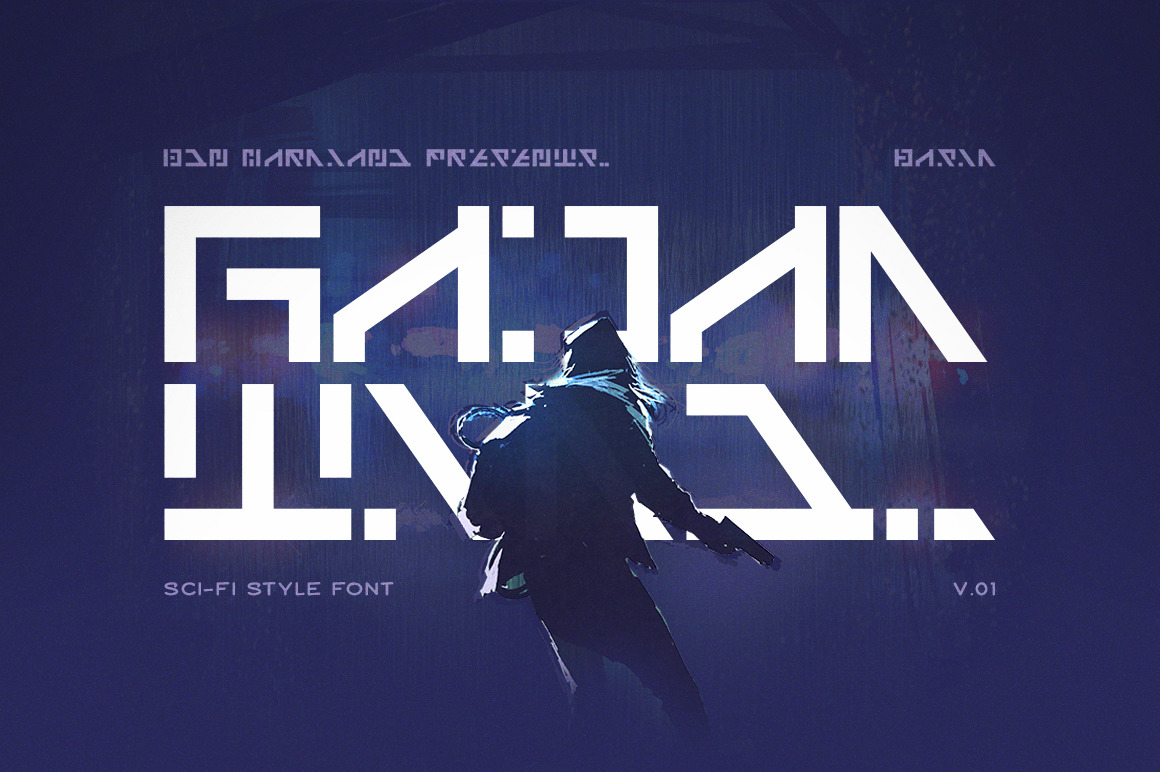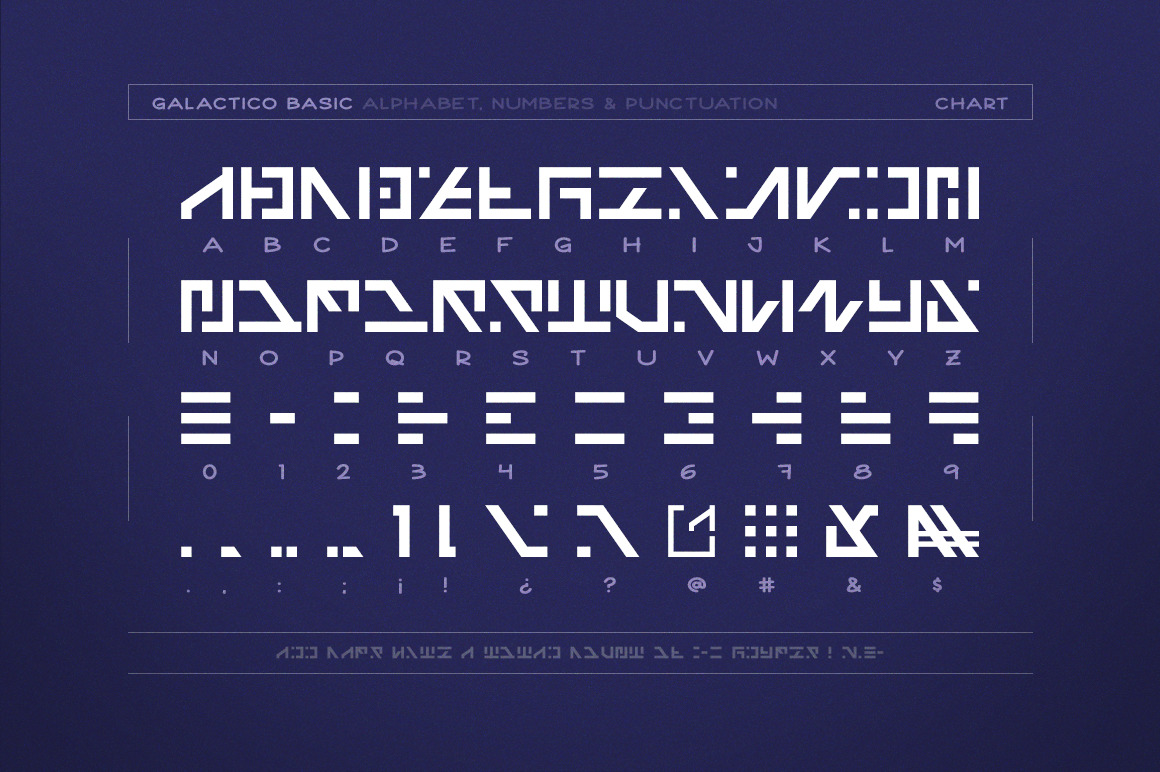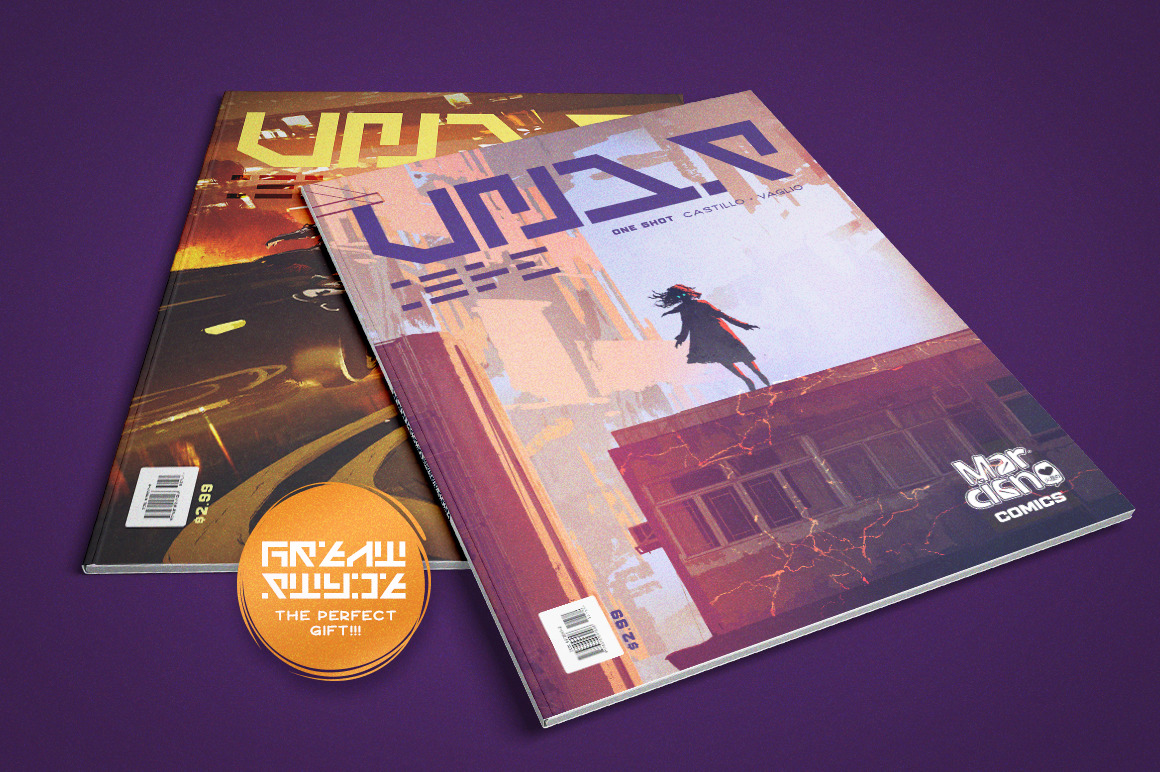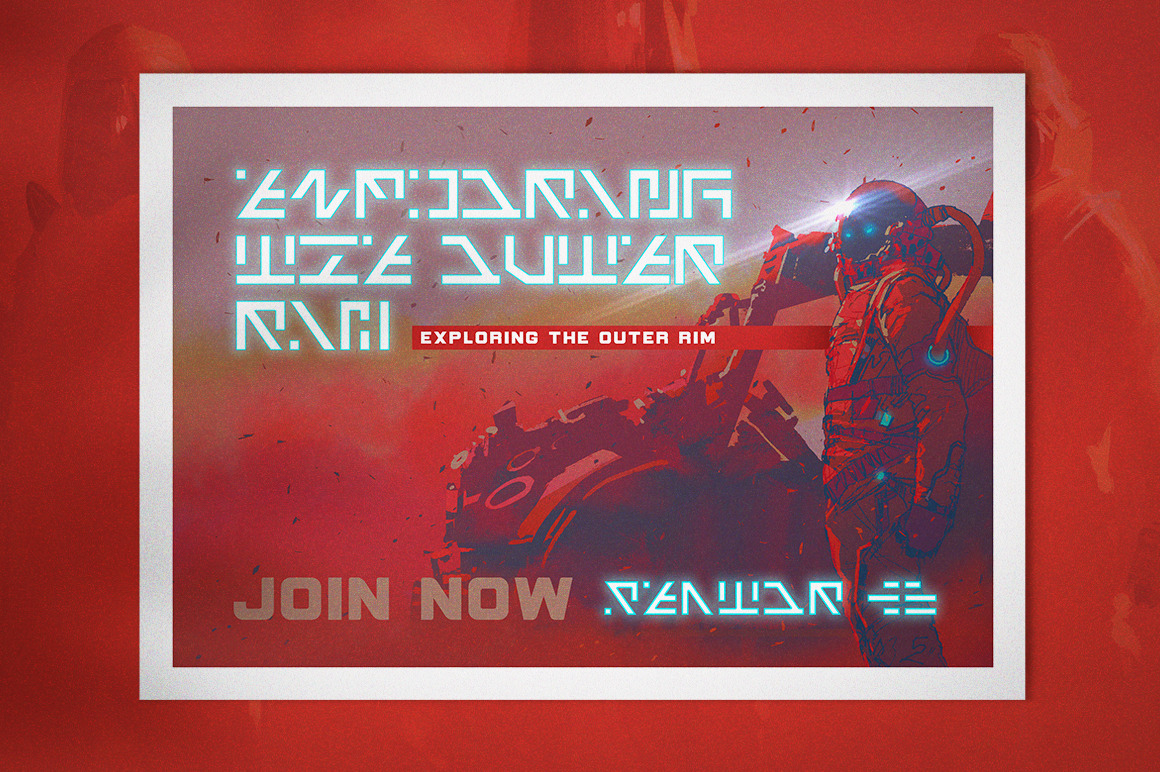
Galactico - Scifi Font
Galactico is a Sci-fi style inspired display font in .OTF format. It comes with 215 glyphs. Enjoy! I’ll appreciate your support if possible, Thanks!